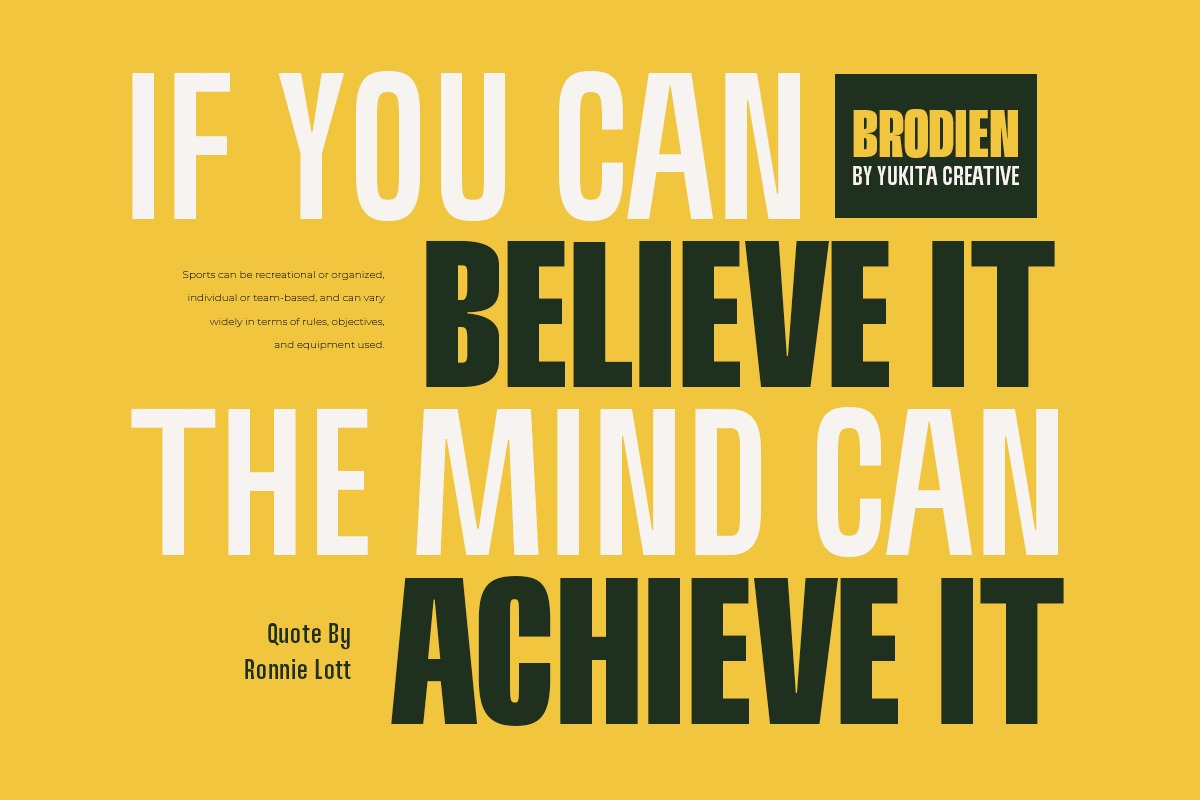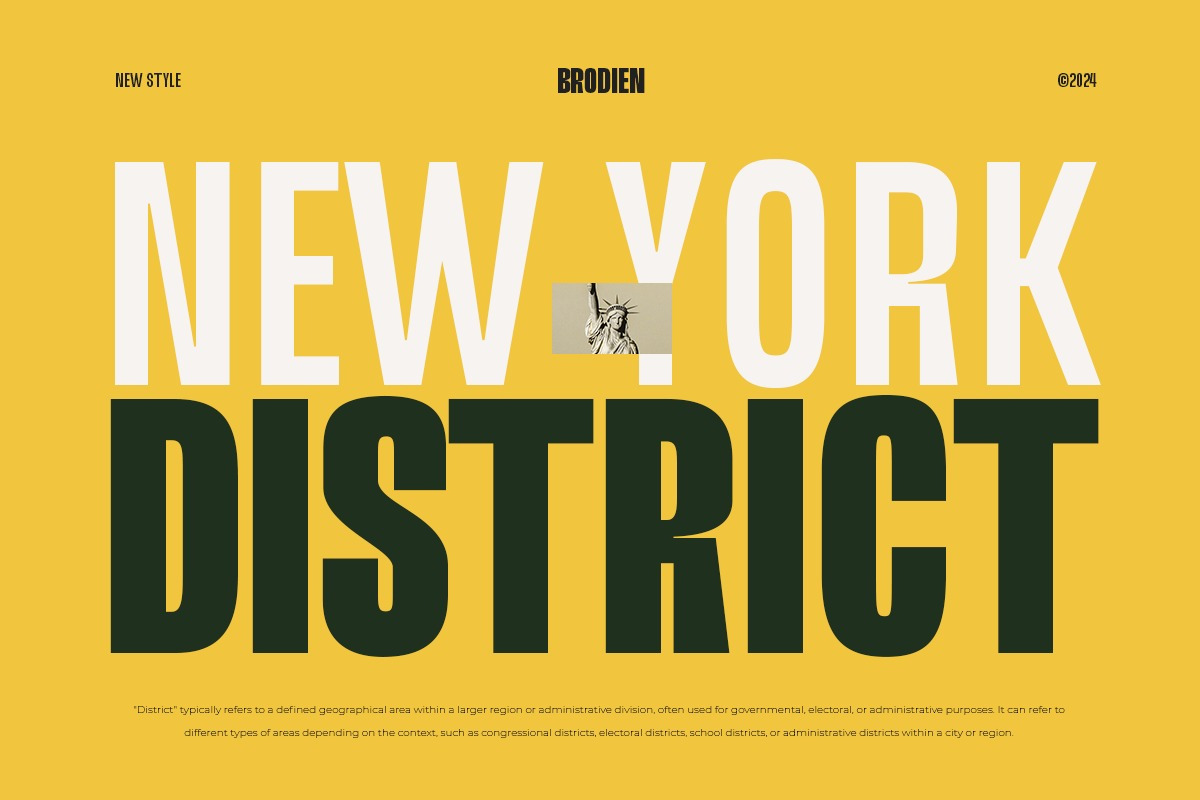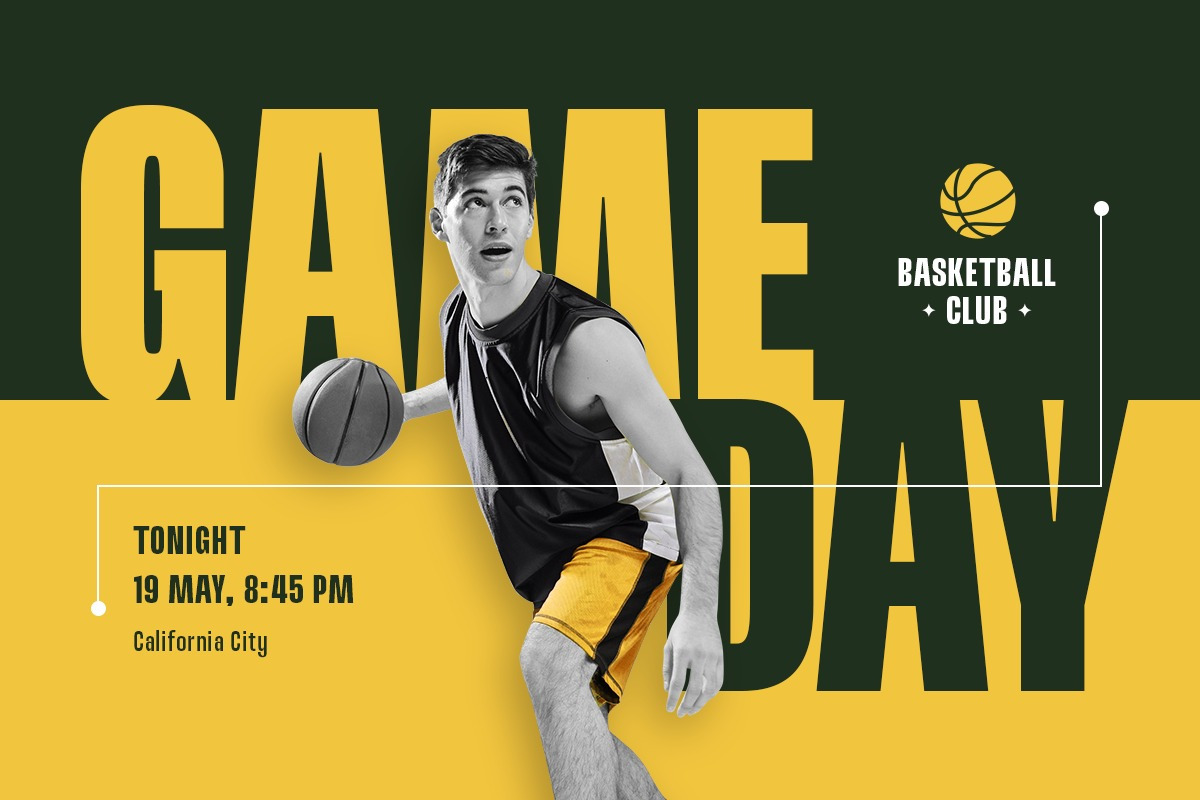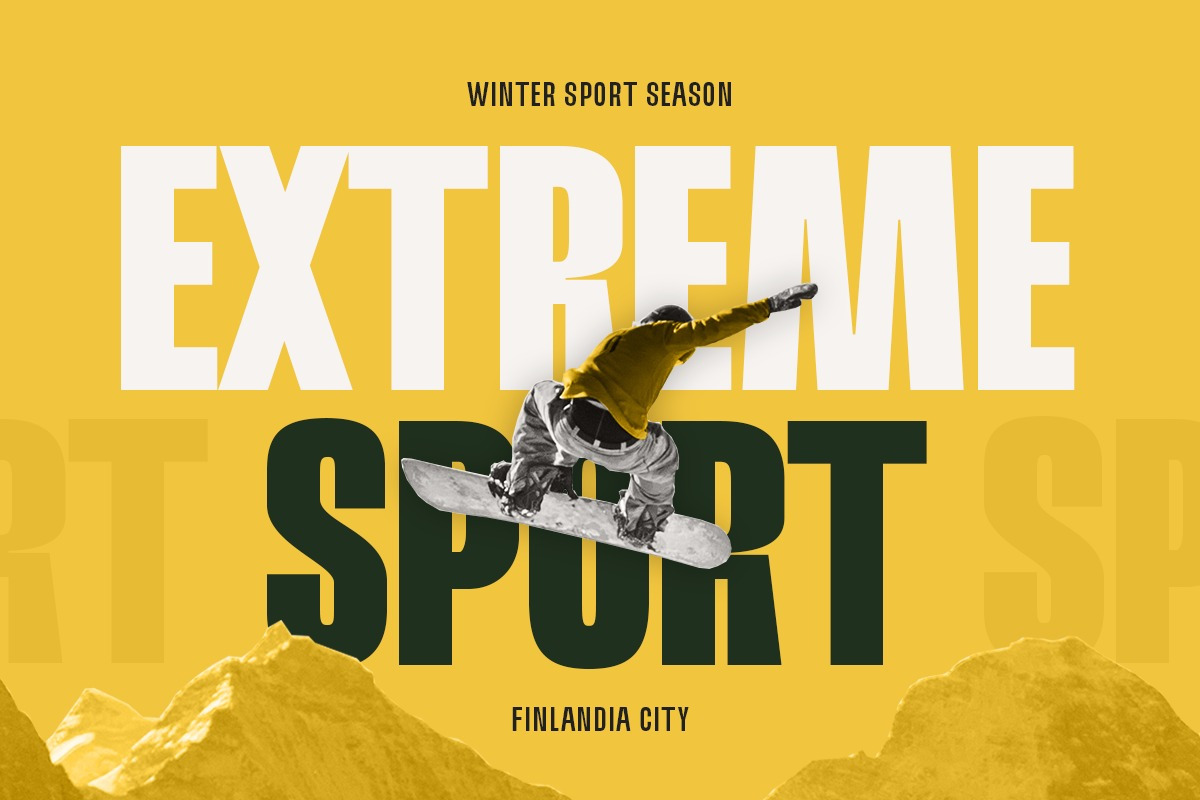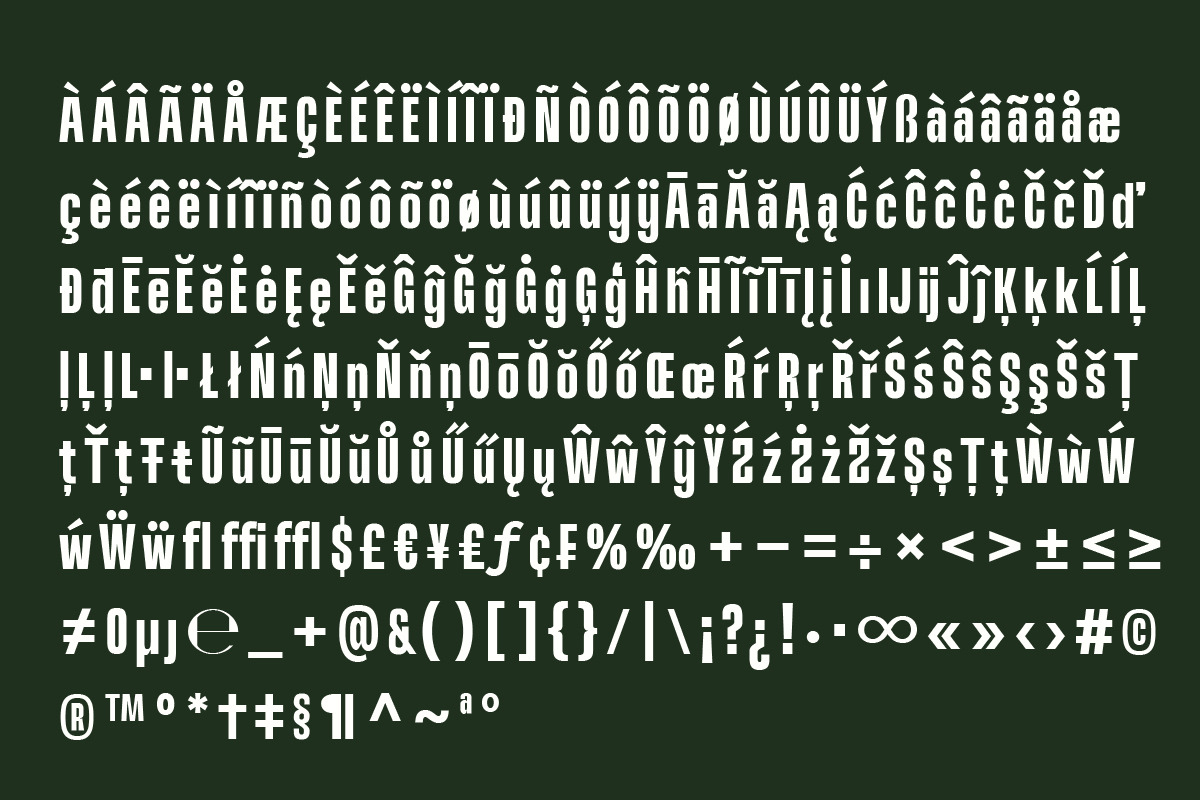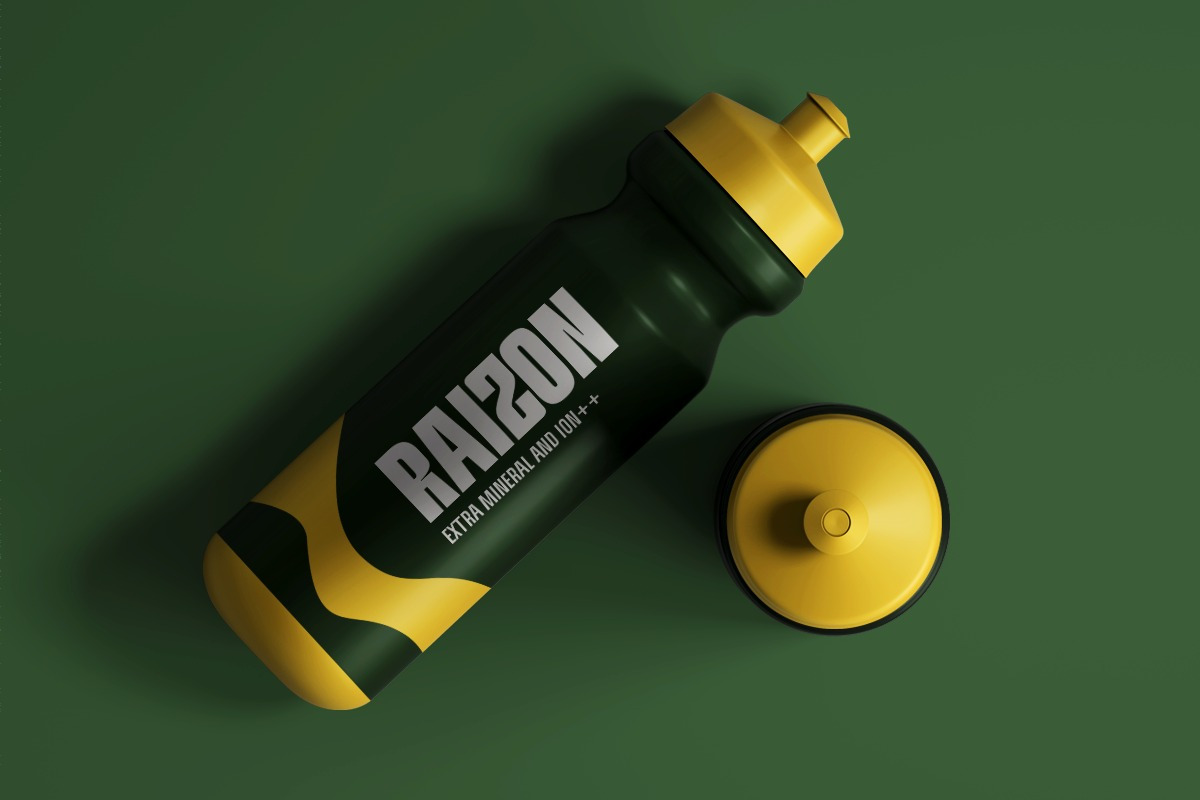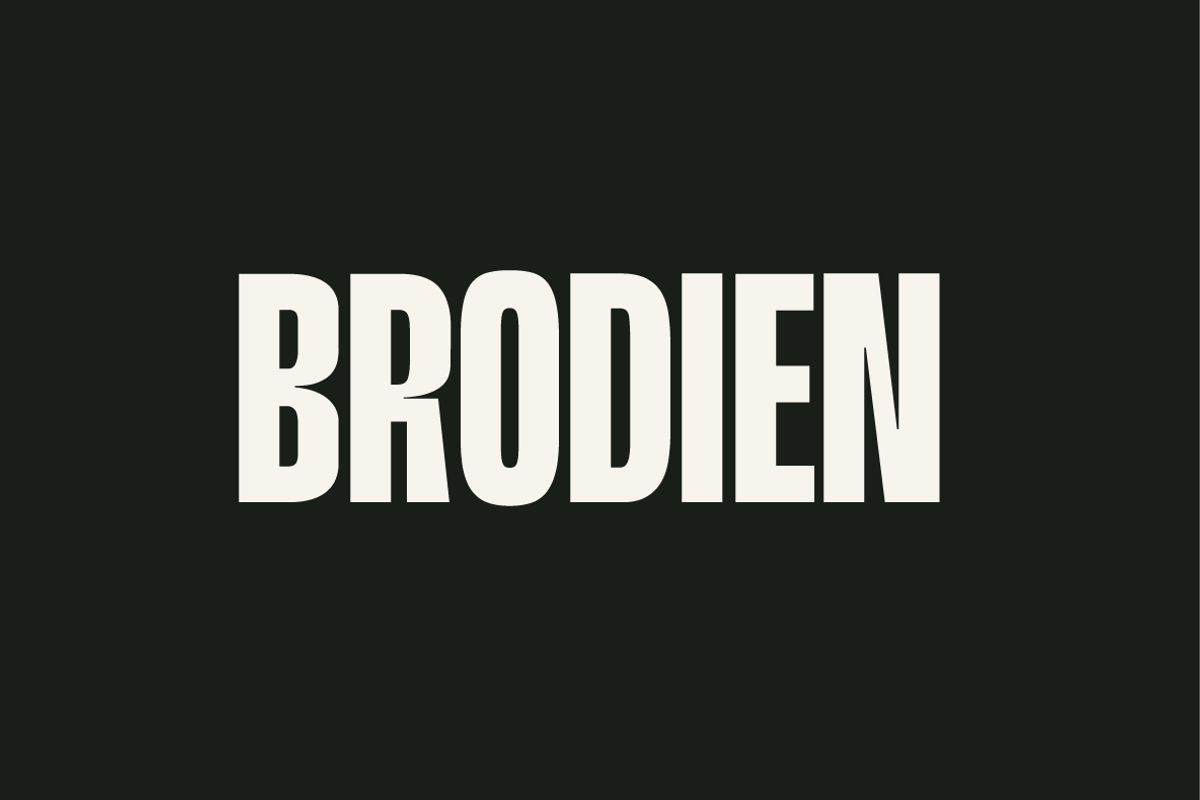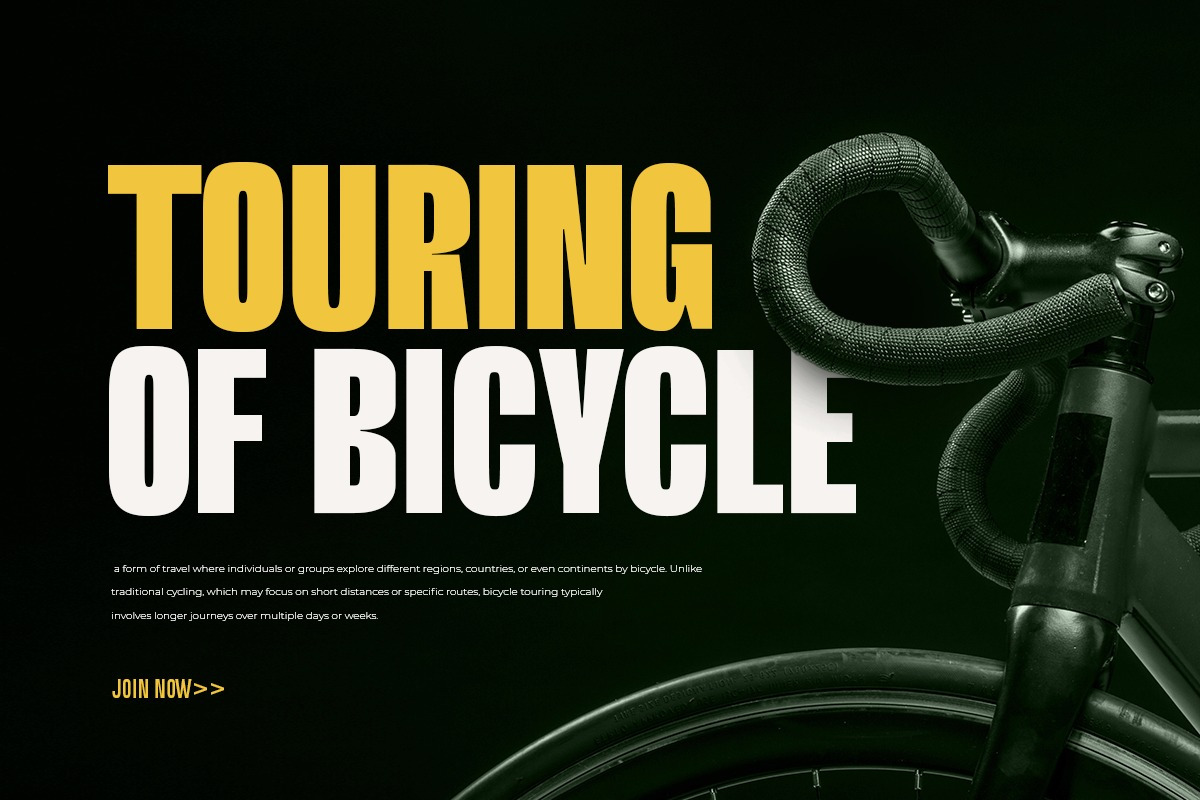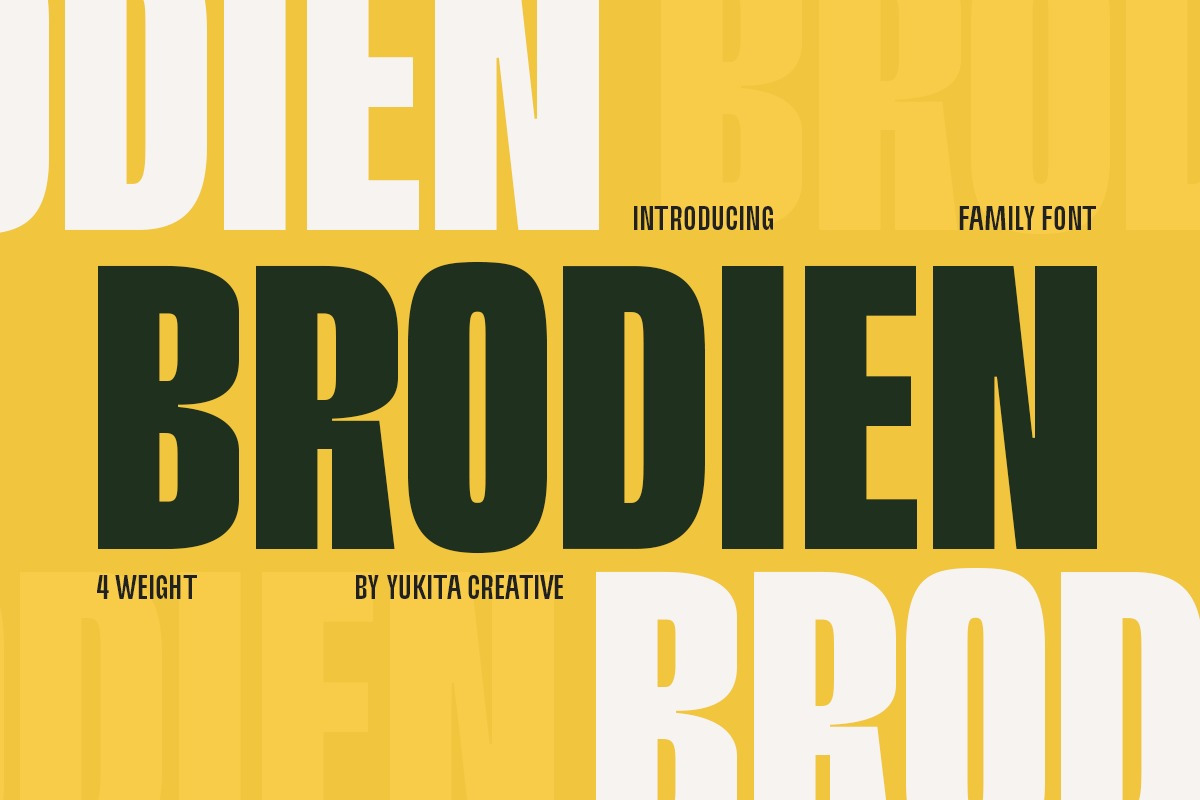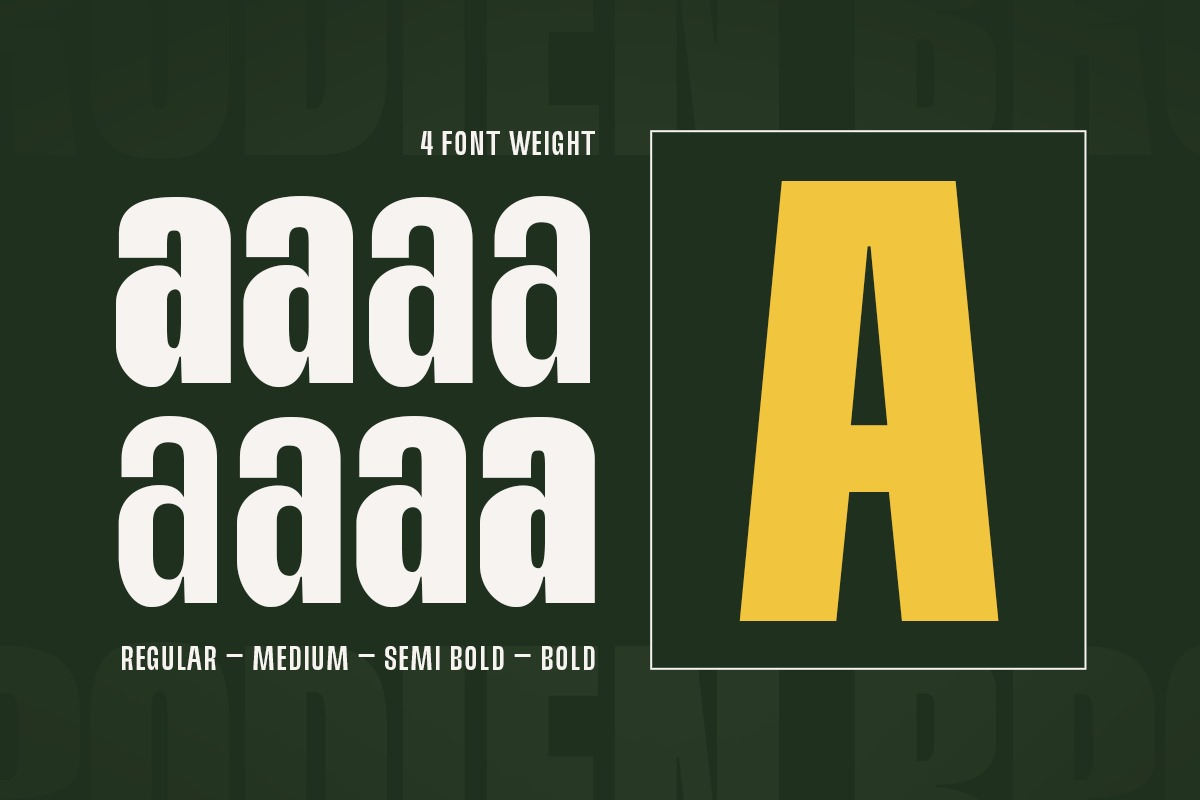
Brodien Condensed Font
Brodien Condensed is an attractive and versatile font, with its four weights offering wide design flexibility. With a clean and modern feel, this font is suitable for a variety of graphic design projects, from logo designs to marketing materials.
Brodien Condensed is a versatile font with four weights: Regular, Medium, Semi-Bold, and Bold. With a modern feel and good readability, it is suitable for a variety of graphic designs from small text to large titles.
Elevate your game with Brodien Condensed! This bold, dynamic font is perfect for making a statement in your sports designs. Whether it's for a team logo, apparel, or promotional materials, Brodien Condensed delivers a punch of energy and style.